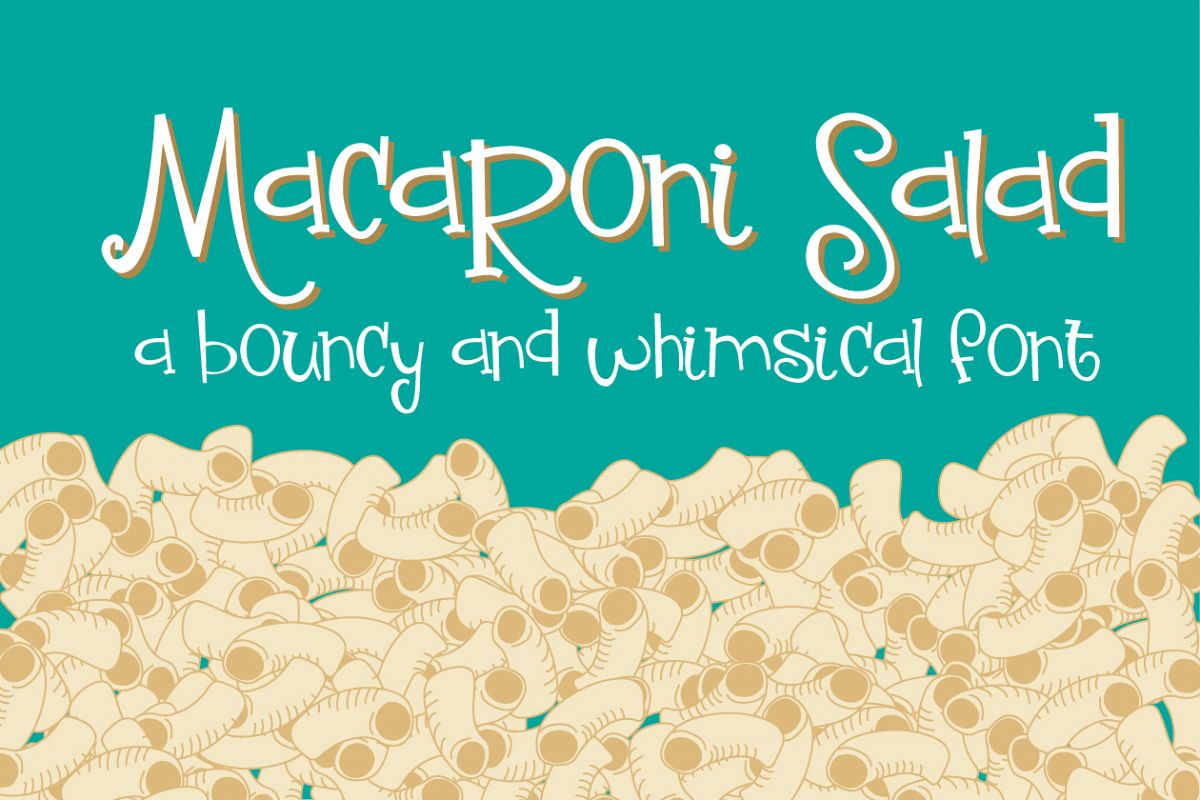
ZP Macaroni Salad
This cute and fun font has a few curly letters and surprise lowercase R that wraps around and makes your writing look more whimsical.
• Numbers and symbols
• International characters